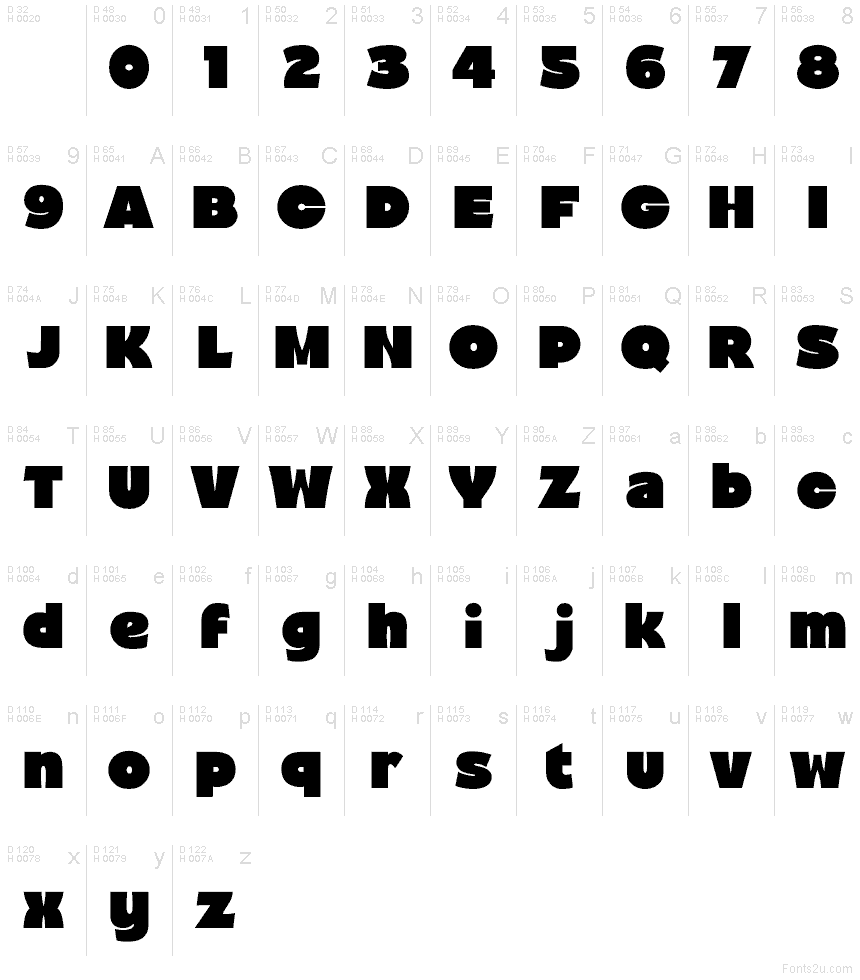
Janeiro DEMO
The new Janeiro font from Ikiiko Type is a stunning bold sans serif font with thick curves that’ll take you on a visual journey. The font features a unique design inspired by retro style signage. You can use it for your next graphic design or typography project, especially if it involves an image or illustration related to traveling and the retro era.